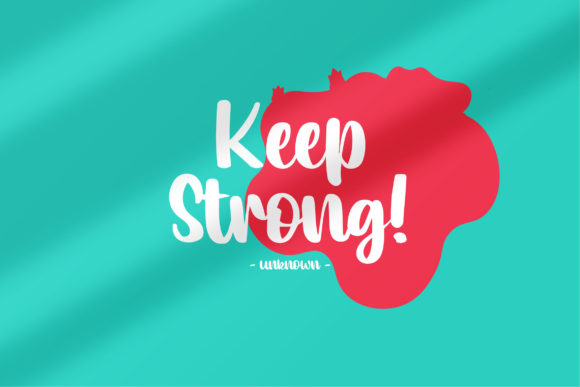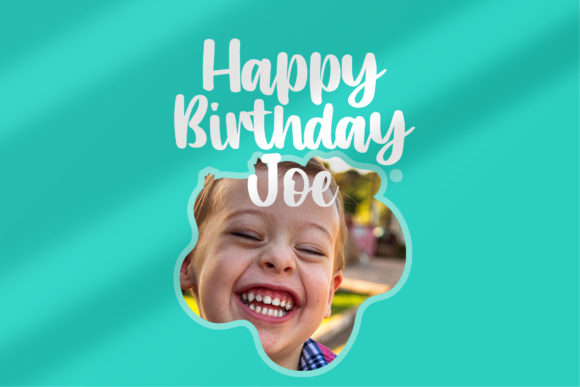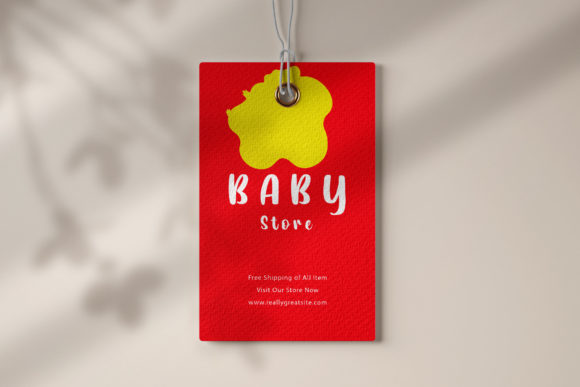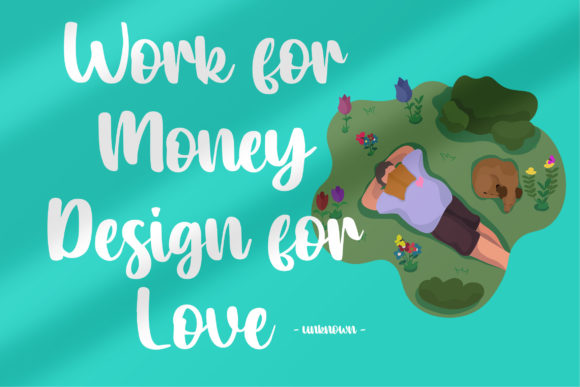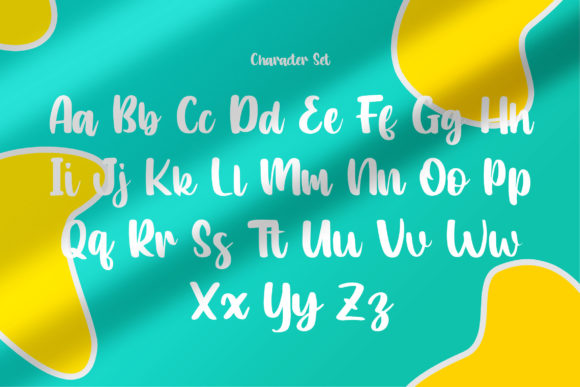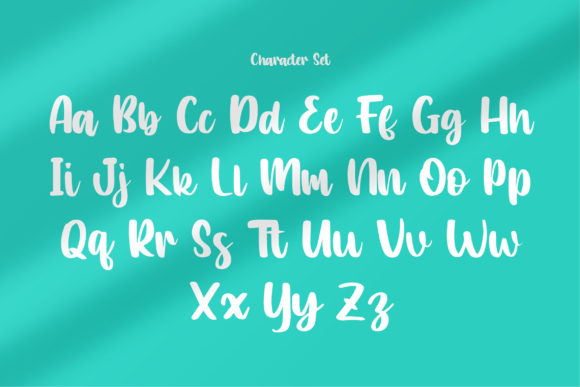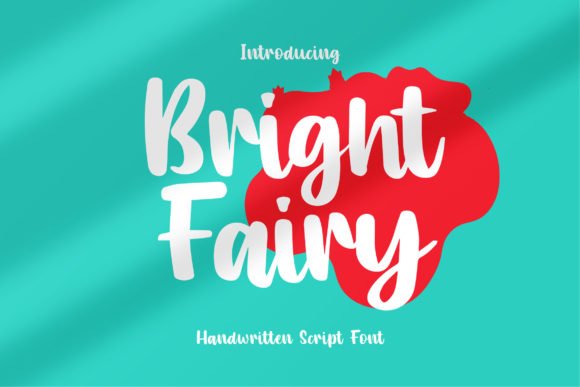
Unlock the Magic of Bright Fairy Font
Do you remember the feeling of rummaging through your grandmother’s craft box, filled with colorful markers, glittery stickers, and an endless supply of imagination? As you poured over the pages of a well-loved children’s book, the words seemed to dance off the page, inviting you to join in on the adventure. That same sense of wonder and creativity is exactly what the Bright Fairy Font embodies.
This bold and fun handwritten font is the perfect tool to bring a touch of childlike playfulness to any project. Whether you’re designing a kids’ book, creating a school project, or simply looking to add some whimsy to your next graphic design, Bright Fairy Font is the perfect companion. As a designer, you’ll appreciate the versatility and charm it brings to any layout, making it an invaluable addition to your toolkit.
Bright Fairy Font Key Features
• Unique Characteristics: Features a whimsical, hand-drawn design with intricate details and subtle texture, giving it a fairy-like appearance
Bright Fairy Font Review
Overall, I think the Bright Fairy Font is a fun and playful addition to any design project. ✨ The rounded edges and whimsical feel of this font make it perfect for creating a magical and enchanting atmosphere.
Here are some things that I think work well:
• ✨ Unique style: The Bright Fairy Font has a distinctive look that sets it apart from more traditional fonts.
• ✨ Versatility: This font can be used in a variety of contexts, from children’s books to wedding invitations.
• ✨ High-quality design: The font is well-designed and includes a wide range of characters and symbols.
However, I do have some concerns:
• ⚠️ Limited font sizes: Some font sizes may appear inconsistent or difficult to read, especially at smaller sizes.
• ⚠️ Not suitable for formal text: Due to its playful nature, this font may not be the best choice for formal or professional writing.
Overall, I think the Bright Fairy Font is a great choice for designers who want to add a touch of whimsy and magic to their projects. Just be sure to use it wisely and consider the context in which it will be used.
Getting the Most Out of Bright Fairy Font
Here are some tips for getting the most out of Bright Fairy Font:
1. Use it in conjunction with pastel colors for a whimsical and magical effect.
2. Experiment with different font sizes and styles to create visual interest.
3. Combine Bright Fairy Font with other playful fonts for a unique and eye-catching look.
Bright Fairy Font is ideal for:
1. Children’s book covers and illustrations.
2. Wedding invitations and stationery.
3. Magazine and brochure designs.
Alternatives to Bright Fairy Font
Great Vibes Font is a modern, elegant, and playful script font. It is ideal for use in branding, advertising, and editorial content. It has a more refined and sophisticated look compared to Bright Fairy Font, making it suitable for more formal and professional projects.
Comparison: Great Vibes Font has a more polished and sophisticated look, whereas Bright Fairy Font is more whimsical and playful. Great Vibes Font is better suited for formal projects, while Bright Fairy Font is ideal for more casual and creative projects.
Carolyna Pro Font is a elegant, modern, and sophisticated script font. It is perfect for use in luxury branding, high-end advertising, and premium editorial content. It has a more refined and luxurious look compared to Bright Fairy Font, making it suitable for high-end projects.
Comparison: Carolyna Pro Font has a more luxurious and refined look, whereas Bright Fairy Font is more whimsical and playful. Carolyna Pro Font is better suited for high-end projects, while Bright Fairy Font is ideal for more casual and creative projects.